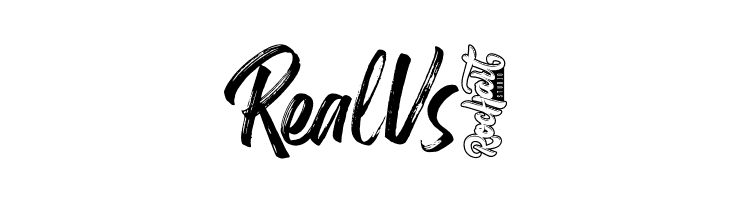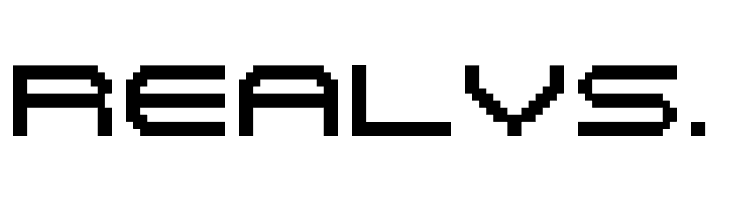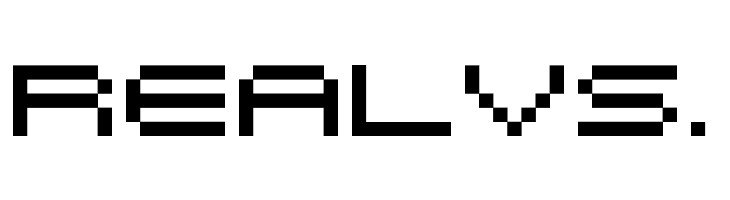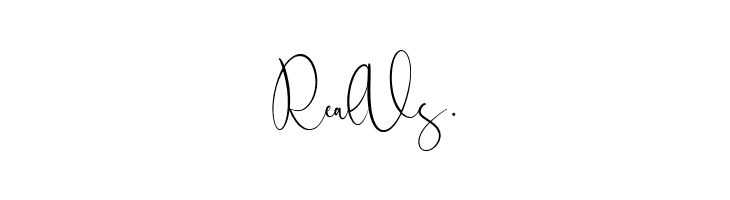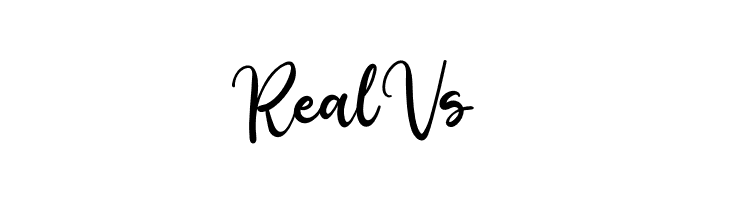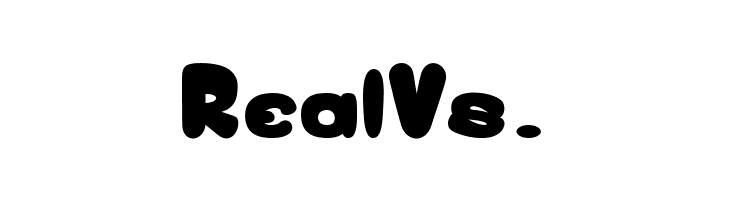
A bold, playful font with rounded, chubby characters and a modern geometric style.
A bold, geometric font with a hollow interior and futuristic design.
A bold, italic, and futuristic font with sharp angles and a dynamic style.
A futuristic, geometric font with bold, clean lines and a modern aesthetic.
A bold, geometric font with a futuristic, tech-inspired design.
A bold, distressed font with an edgy, graffiti-like appearance.
A bold, distressed font with a rugged, fragmented style and heavy texture.
An elegant, flowing script font with a handwritten style.
A graceful, flowing script font with elegant curves and high contrast.
A modern, slanted script font with fluid, connected characters.
A futuristic, angular, and italicized font with a condensed style.
A futuristic, geometric font with a condensed and angular design.
A bold, serif font with strong strokes and a classic yet modern aesthetic.
A bold, expanded typeface with geometric letterforms and strong presence.
A bold, expanded typeface with strong, well-defined characters.
A modern, expanded, extra light font with low contrast and smooth strokes.
A modern, expanded font with a light weight and elegant style.
A bold slab serif font with expanded letterforms and moderate stroke contrast.
A bold, classic serif font with strong, elegant strokes.
A modern, elegant font with thin strokes and excellent readability.
A modern serif font with a light weight and elegant style.
A modern serif font with high contrast and bold strokes, offering elegance and readability.
A bold, expanded serif font with a strong, authoritative presence.
An elegant, expanded font with thin strokes and a modern, airy feel.
A modern, expanded serif font with a light weight and clean design.
A bold, modern slab serif font with expanded width and strong presence.